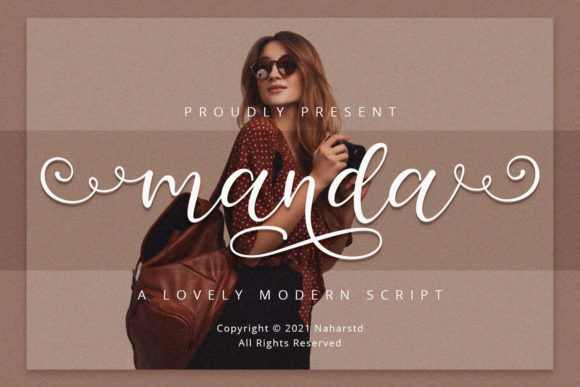
Journey into the world of handwritten elegance with Manda Font, a script font that exudes authenticity and casual charm. Its graceful strokes and playful curves add a touch of personality to your creative expressions.
Picture the beauty of wedding invitations adorned with Manda's flowing script, conveying the joy and love of your special day. Imagine thank-you cards that express your heartfelt gratitude with a personal touch. Quotes and greeting cards take on a new life, imbued with the warmth and sincerity of handwritten words.
Logos and business cards crafted with Manda Font make a lasting impression, embodying professionalism and creativity. Branding projects find a perfect partner in Manda's versatile style, allowing you to create a cohesive and captivating brand identity.
The applications of Manda Font are boundless, extending to any design that seeks a handwritten flair. Its ability to evoke emotions and create connections makes it an ideal choice for marketing materials, social media posts, and digital content.
Unleash your creativity and let Manda Font guide you to new heights of design excellence. Its PUA encoding ensures effortless access to a world of glyphs and swashes, empowering you to add intricate details and flourishes to your projects.
With Manda Font, you hold the key to unlocking a world of handwritten beauty. Its charm, versatility, and ease of use make it an indispensable tool for designers, crafters, and anyone seeking to add a personal touch to their creative endeavors.
Embark on a journey of artistic expression with Manda Font, and discover the magic of handwritten elegance. Let your imagination soar as you create designs that captivate and inspire.